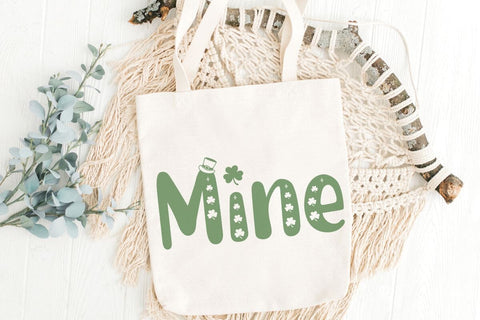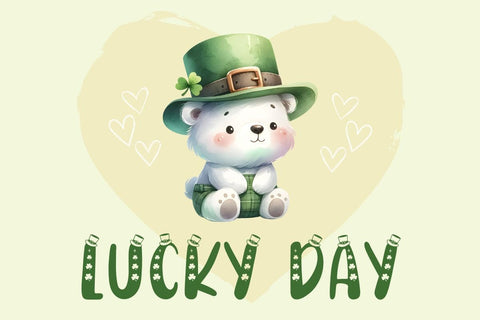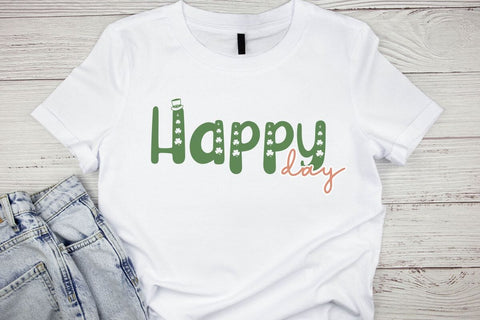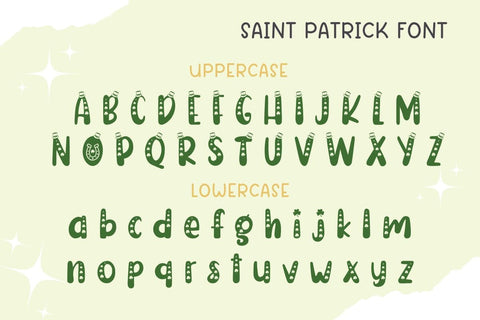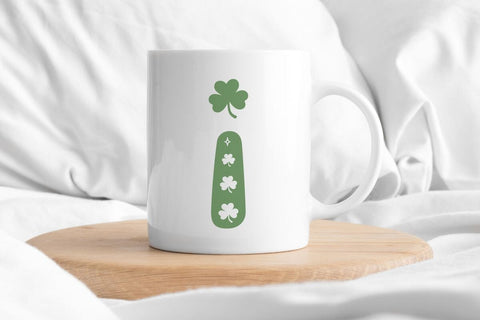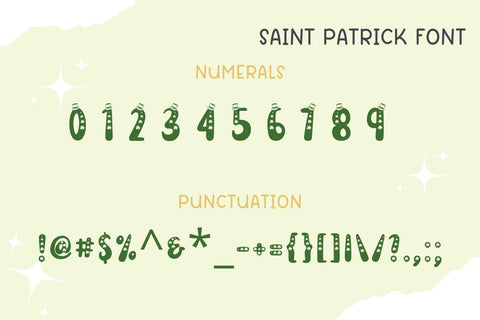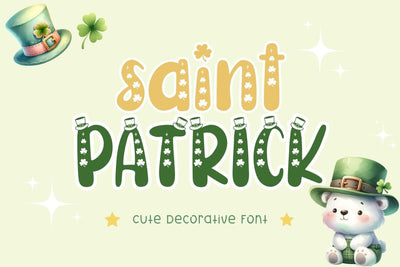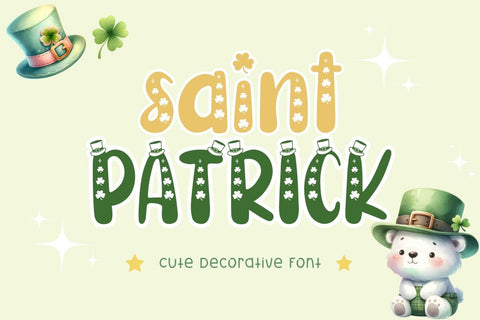
Saint Patrick - Decorative Font
Saint Patrick is a cute decorative font. Retro fonts combined with different elements get new fonts that are cute and fun. Perfect for creating a wide variety of new designs to match products such as banners, content, mugs, cards, shirts, stationery, social media posts, and more!